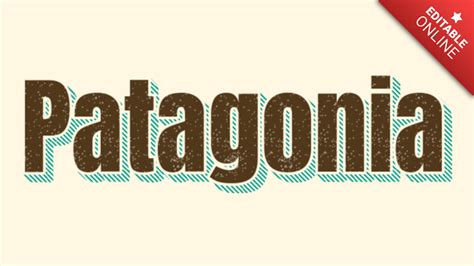
Try our text generator and create cool graphics for patagonia font, then you can save the font. The whole font family possesses 7 unique styles along with splendid marks including light, bold, condensed and others. Patagonia font generator & download is available free at fontbolt. Web patagonia font helps to make your designs more classy and elegant. Web text generated by us for you. Enter your text, select a font, choose a font size, and pick your favorite colors. Web the “text generators” section features an array of online tools for you to create and edit text graphics easily online; Use our free patagonia font generator tool below to create your own custom design logo or image. Simply generate and share with your friends. The “font collection” section is the place where you can browse, filter, custom preview and.